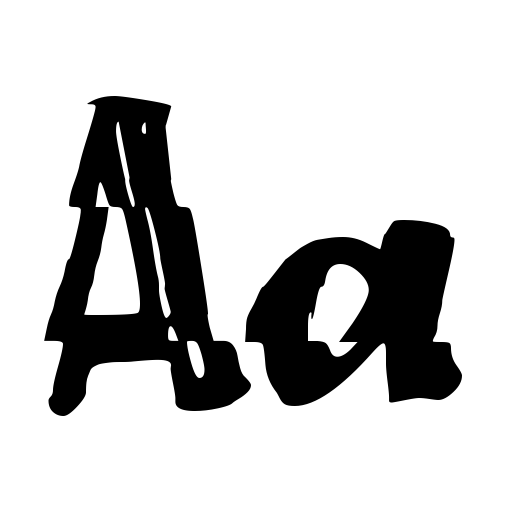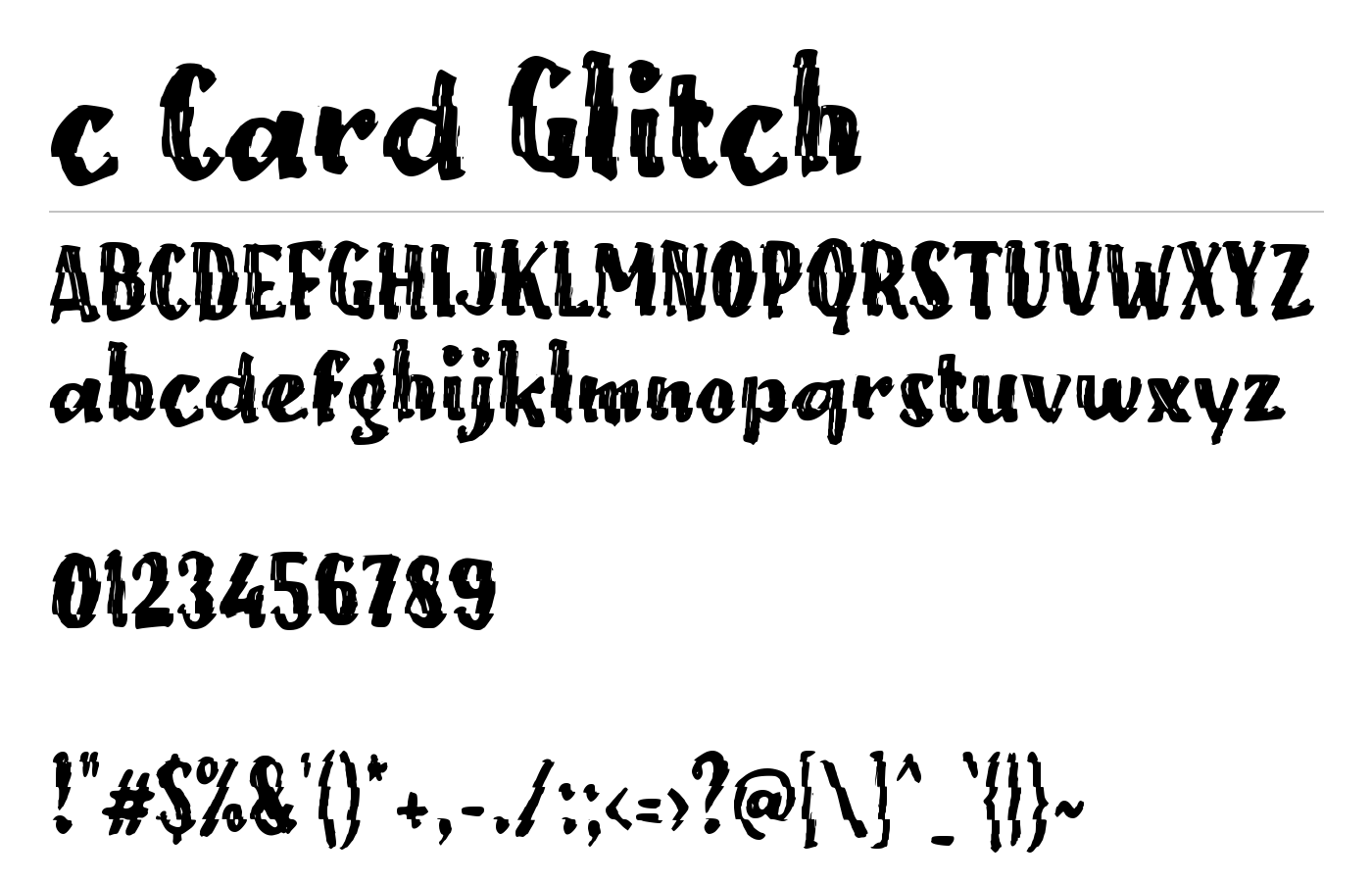
c Card Glitch is a bold and expressive display font with a distressed, glitch-like texture that gives it a dynamic, edgy feel. Its strong, condensed letterforms combined with irregular, fragmented strokes create a sense of digital distortion, making it perfect for designs that want to convey a modern, rebellious, or tech-inspired vibe. This font stands out best in headlines, posters, and branding projects where a striking, unconventional look is desired.
c Card Glitch Font
About c Card Glitch Font